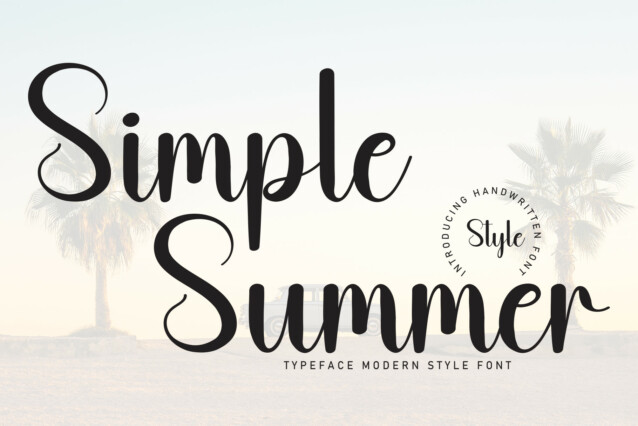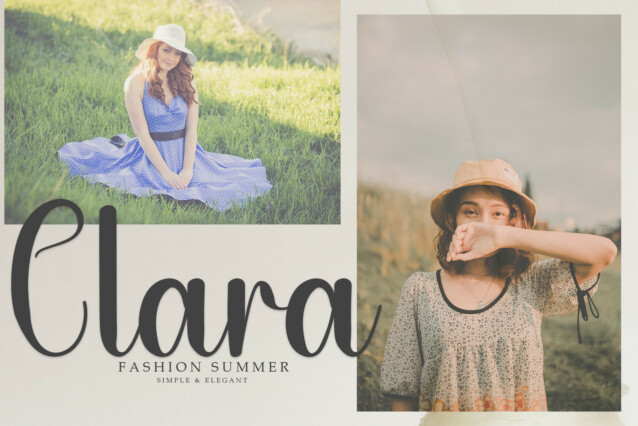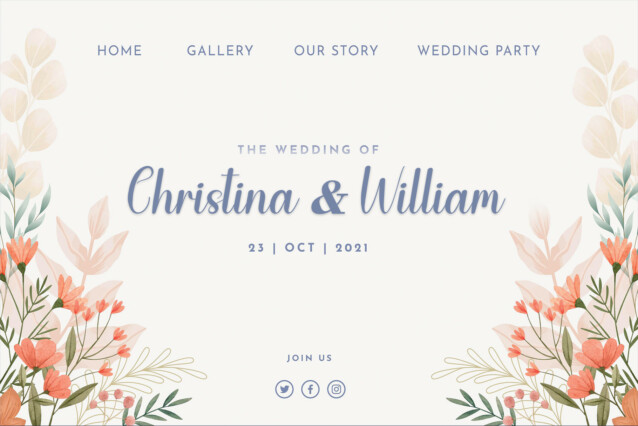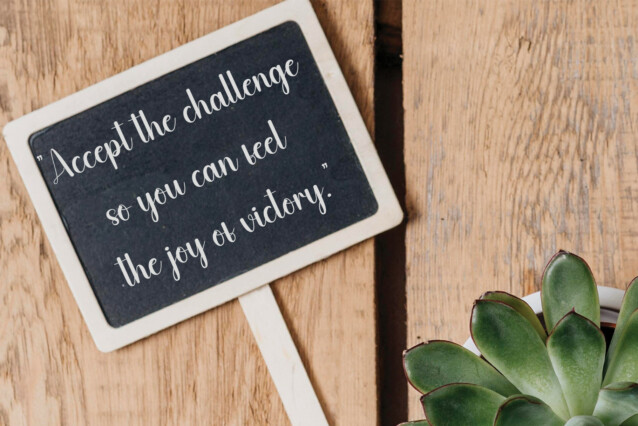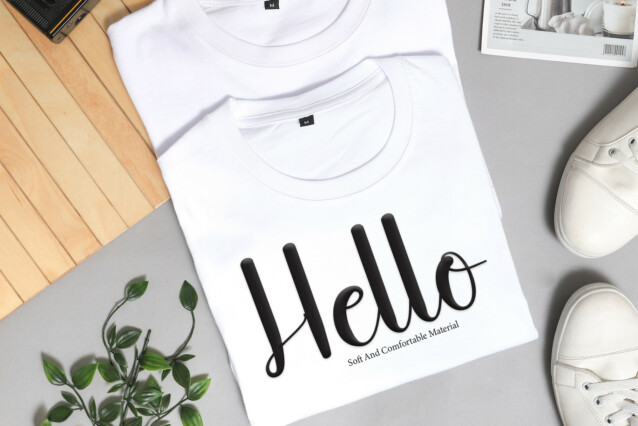
Simple Summer Script Typeface
Simple Summer Script Typeface is a sweet and friendly handwritten display font. Cute and fun, this font is ideal for writing wedding invitations, cards, or any other design that might need a playful touch!